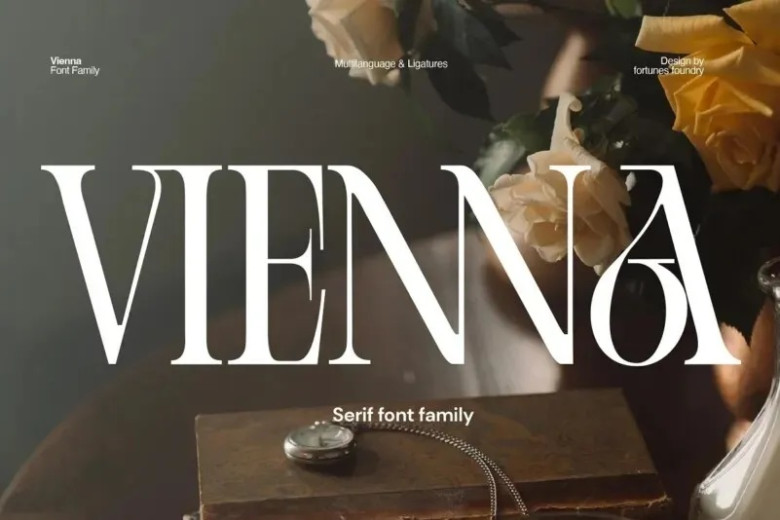
Vienna Font
Vienna is a modern serif font style that combines traditional and modern design elements, creating an original and fashionble look. It is characterized by serifs, or small lines added to the end of a stroke that give a classical, upscale feeling. This font is often found in high fashion magazines and advertisements to exude luxury and elegance.
The fashion serif font is open, smooth and adaptable. It can be used widely, with the natural appearance of your title, body text,webpage subtitles, and more. As a result, this typeface is the perfect choice for designers looking to give their work a luxurious, high-end aesthetic ideal.
Vienna Serif Font